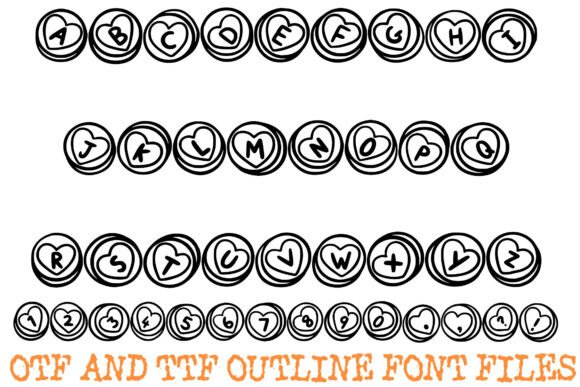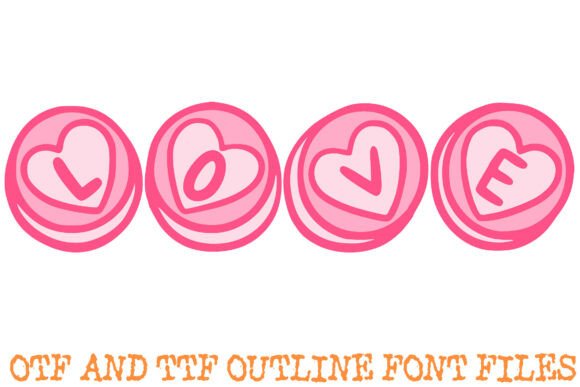
Introduction to Retro Love Hearts Font
Do you remember the thrill of digging into a box of conversation hearts as a child, searching for the perfect message to share with a friend or loved one? The sweet nostalgia of those colorful candies is now captured in the Retro Love Hearts Font, a charming typeface that brings a touch of vintage whimsy to your designs. This delightful font is more than just a pretty face – it’s a valuable design resource that can elevate your creative project with its unique, hand-drawn charm.
As a designer, you know the importance of finding the perfect font to match your aesthetic. The Retro Love Hearts Font delivers with its bold, high-impact look and quirky construction, making it ideal for designs that need to stand out with a sense of fun and affection.
Key Features of Retro Love Hearts Font
- Unique, hand-drawn design with a touch of nostalgia and romance, perfect for creative projects that need a vintage feel.
- Perfect for wedding invitations, greeting cards, and other romantic or whimsical designs that require a touch of retro charm.
Honest Review: Retro Love Hearts Font
I recently had the chance to use the Retro Love Hearts Font for a creative project, and I must say it was a great choice. The font is a high quality design resource that’s perfect for adding a touch of nostalgia to your work.
Here are some things that I loved about the font:
- ✨ The font is highly customizable, allowing you to adjust the size, color, and style to suit your needs.
However, there are a few limitations to be aware of:
- ⚠️ The font may not be suitable for all types of projects, particularly those that require a more modern or sleek look.
- ⚠️ The font can be a bit overwhelming if used in excess, so be sure to use it sparingly.
Overall, I was impressed with the Retro Love Hearts Font. It’s a great design resource for anyone looking to add a touch of retro charm to their work. Whether you’re working on a creative project or just need a high quality font for a specific task, I would definitely recommend giving it a try.
Retro Love Hearts Font
The Retro Love Hearts Font is ideal for creating whimsical and playful designs, such as:
- Birthday invitations and cards
- Wedding stationery and decorations
- Valentine’s Day and love-themed designs